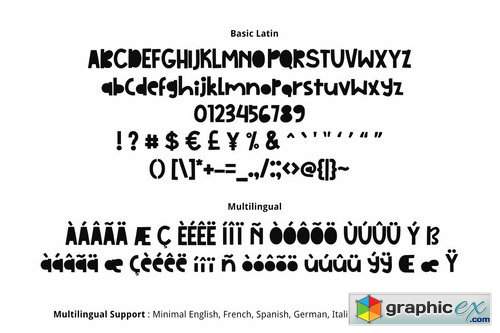
Tiny Solid Font
Tiny Solid Font is lovely simple cute multipurpose handmade font, suitable for many project children book, quotes, logo , heading , title etc.